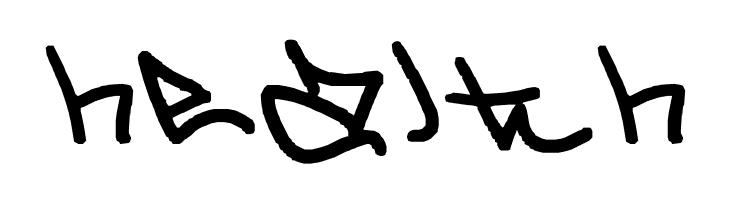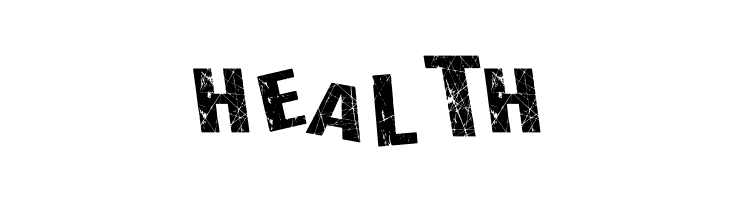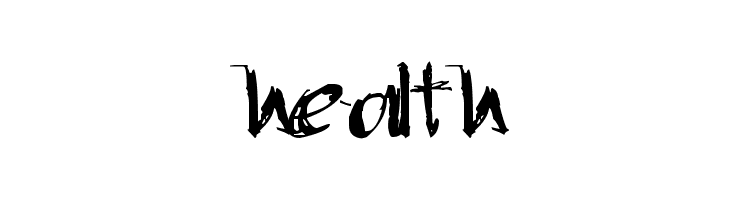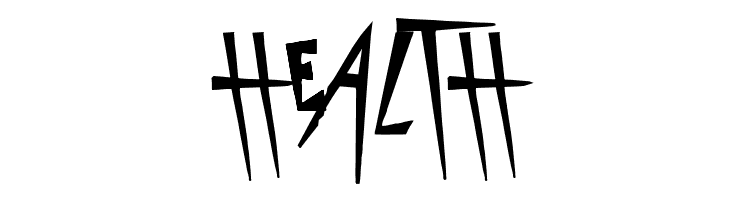
( Fonts by bob istheowl http://luc.devroye.org/bobistheowl.html )
Graphic-heavy, rock-inspired decorative font with illustrated characters.
( Fonts by David Kerkhoff - www.hanodedphotography.com )
A distressed, grunge-style font with a rough, textured appearance.
A bold, distressed font with a cracked texture for an edgy look.
( Fonts by Daniel Werneck )
A bold, angular font with sharp, dynamic lines and a striking appearance.
A bold, distressed font with a modern, urban aesthetic.